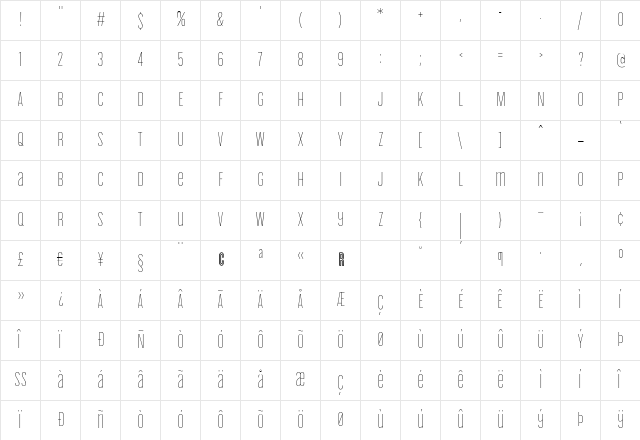
CycloneLayers Regular Font Preview
CycloneLayers Regular
CycloneLayers Regular Font Details
Design Context for CycloneLayers Typeface
CycloneLayers offers clean, dependable letterforms without strong stylistic allegiance, making it a practical choice for designers who need flexibility.